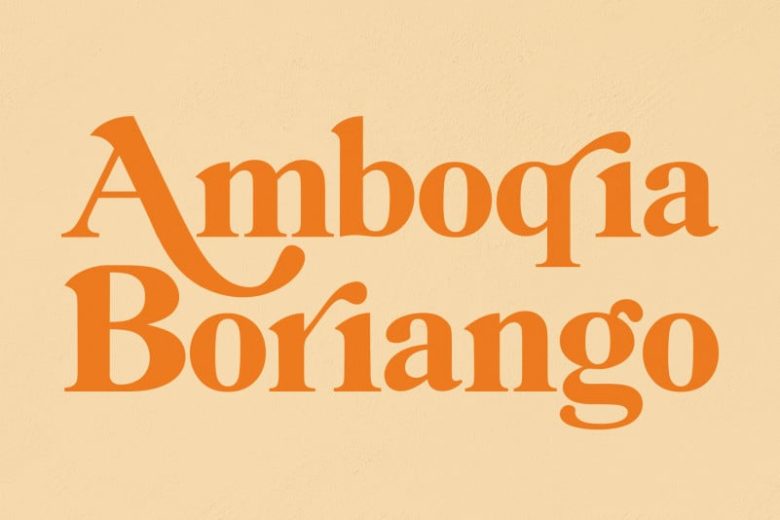
Amboqia Boriango Serif Font
Amboqia Boriango is an elegant and distinct serif font. Masterfully designed to become a true favorite, this font has the potential to bring each of your creative ideas to the highest level!
The newest style letters are perfect for wall displays, wedding invitations, social media post logos,
advertisement, product packaging, product design, label, photography, watermark, invitation, writing tool,
and any project that requires handwritten taste.